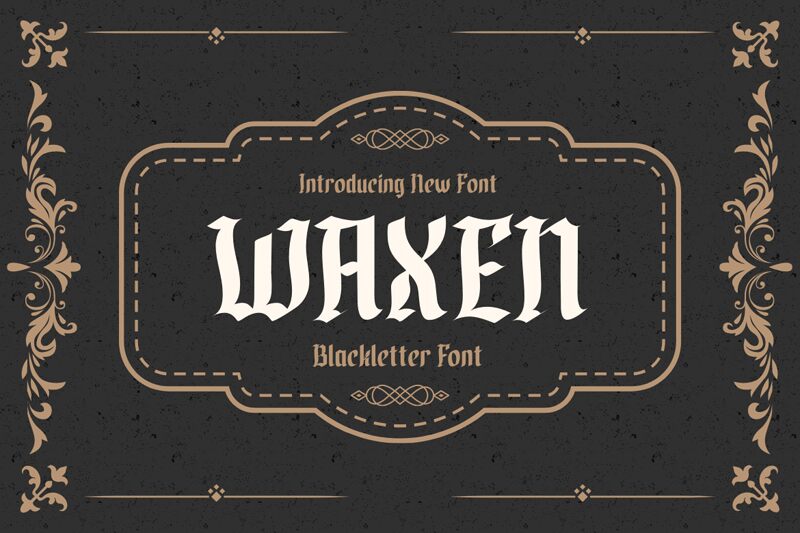
Discover WAXEN, a modern gothic font by twinletter. With its semi-light weight and condensed width, this font brings a vintage and elegant style to any project.
Its classic Roman typeface showcases confident elegance with intricate detailing on each letter. Perfect for enhancing visual projects, titles, or banners, WAXEN adds a bold classic look that exudes style, elegance, and strong personality. Use it in packaging designs to create a striking and timeless appeal. Whether you're creating invitations, logos, or even tattoos, WAXEN is the ideal choice for those seeking a unique blend of modernity and tradition.